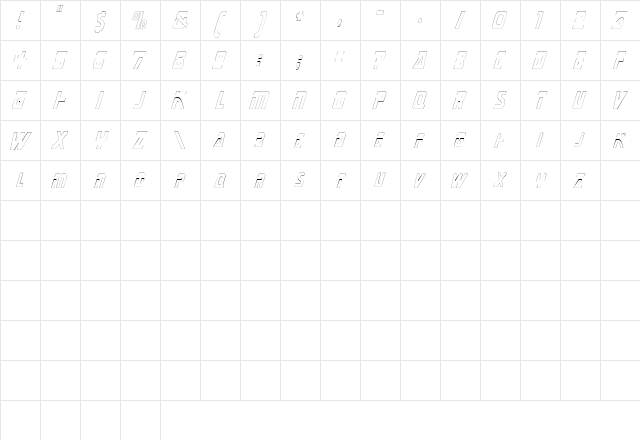
MarinerCondensedOutline Regular
Design Context for MarinerCondensedOutline Typeface
MarinerCondensedOutline is built around its visual character rather than neutral utility — its distinctive forms are designed to make an impression at display sizes.
Font Pairing: Pair with a clean neutral sans-serif for body copy to let MarinerCondensedOutline's character lead without overwhelming the composition.
Pro Tip: Use MarinerCondensedOutline exclusively at display sizes — it was designed to be seen, not read at length. Let a neutral companion handle body copy.